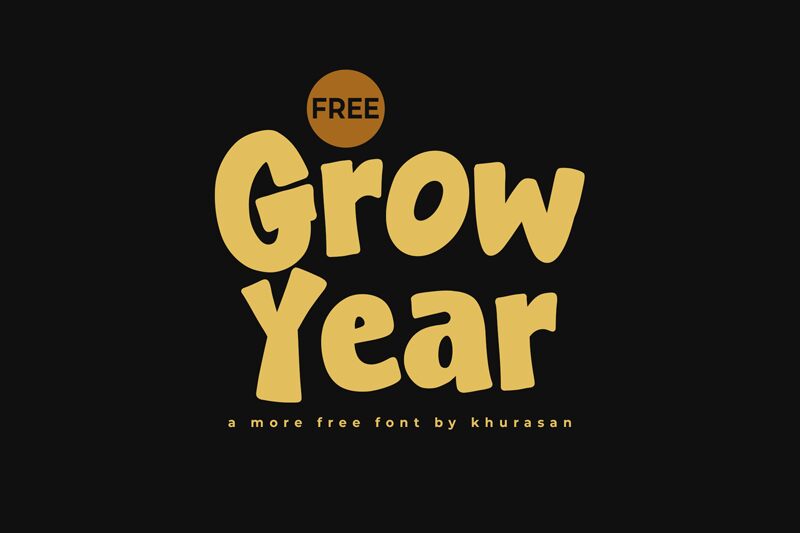
Grow Year font family by Khurasan™ is a free font with a warm, inviting style, and it’s available in 2 perfectly crafted styles. The typeface handwriting is friendly and bold as well as approachable. The imagination flows smoothly making the font a must-have in every digital designer’s library for immediate download.
Your design projects will gain a friendly contemporary, casual, and playful look when using Grow Year. The font was specifically tailored for digital platforms to create a striking online presence. It’s suitable for various product labels, logos, packages, and branding or as a secondary font in interior signages, book covers, website headers, etc.